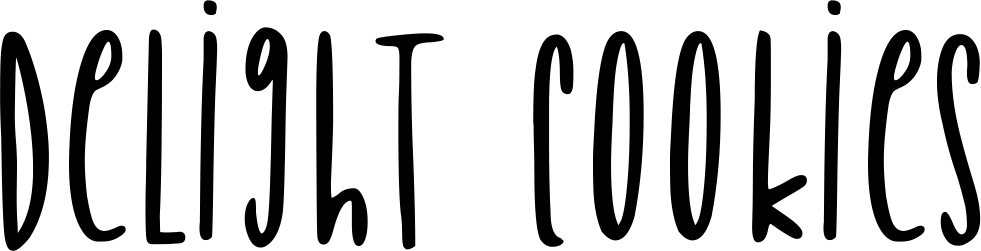
Delight Cookies Font
This delightful handwriting font has a lot of personality with its tall and rather childish design language. Its authenticity and the quality of being friendly and informal can be of great help in branding projects, invi…
This delightful handwriting font has a lot of personality with its tall and rather childish design language. Its authenticity and the quality of being friendly and informal can be of great help in branding projects, invitation cards, and packaging designs.